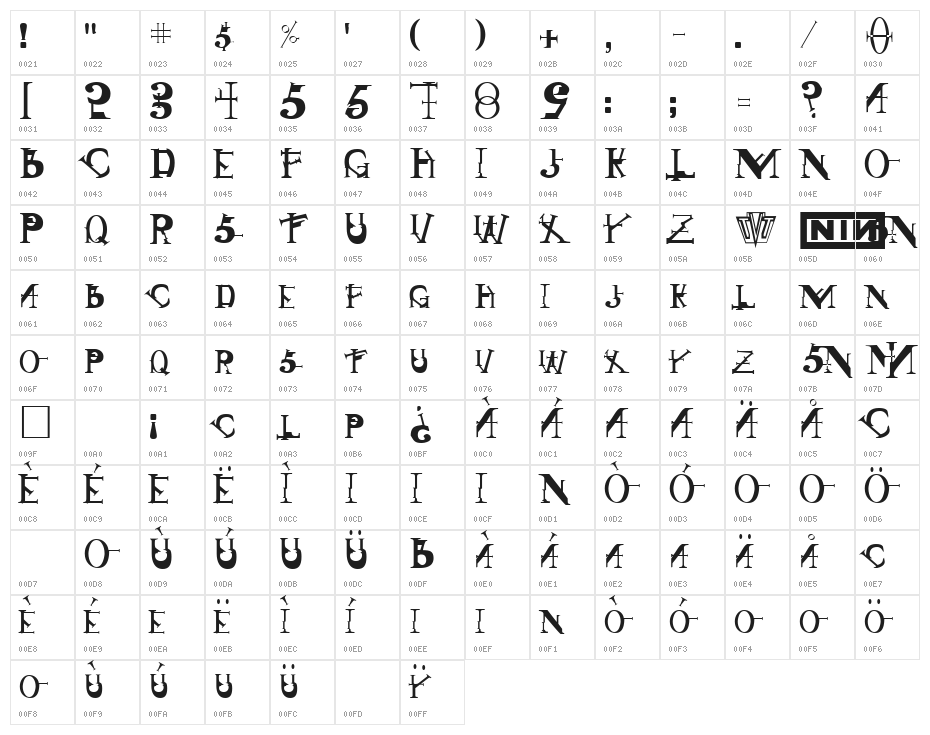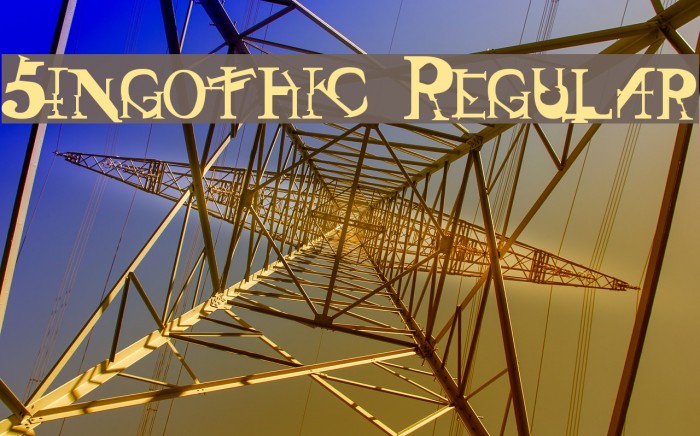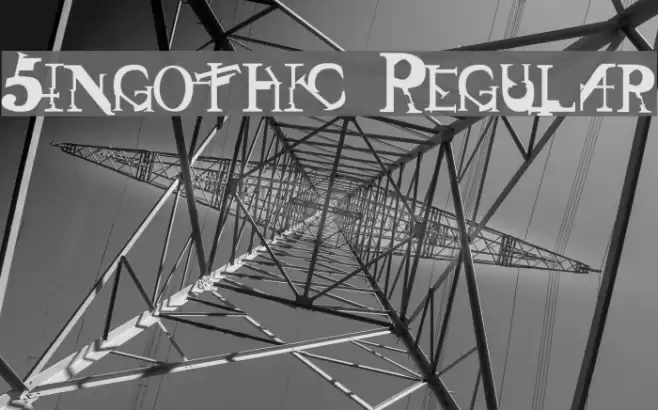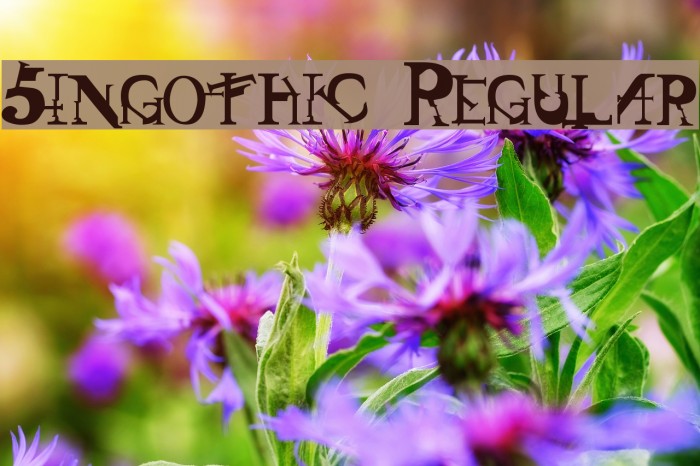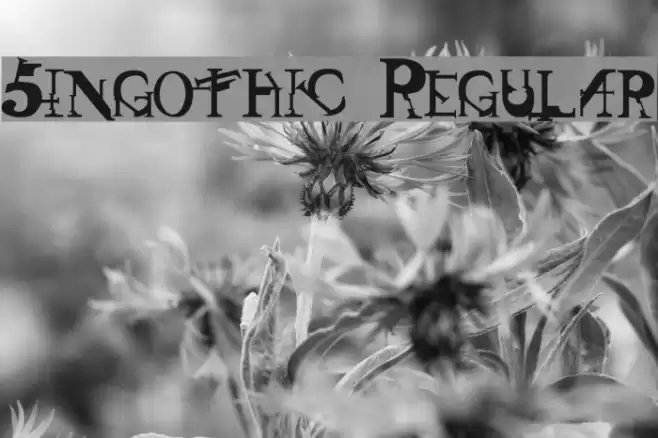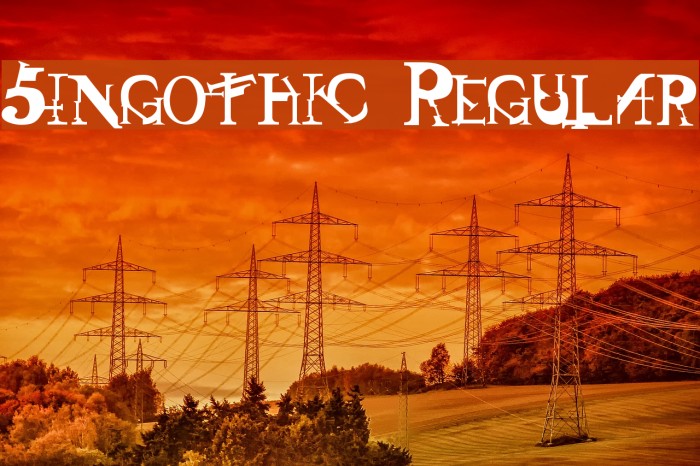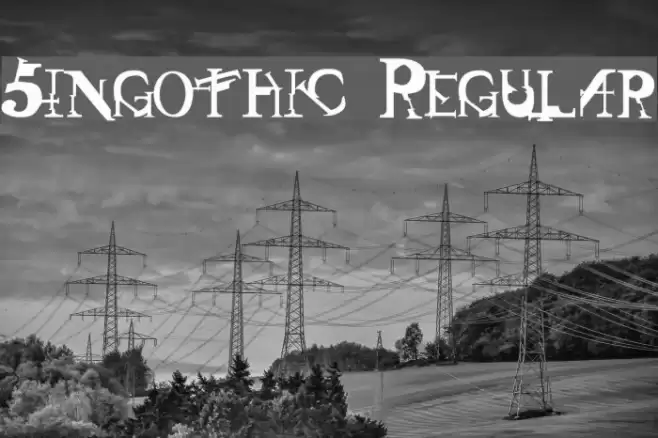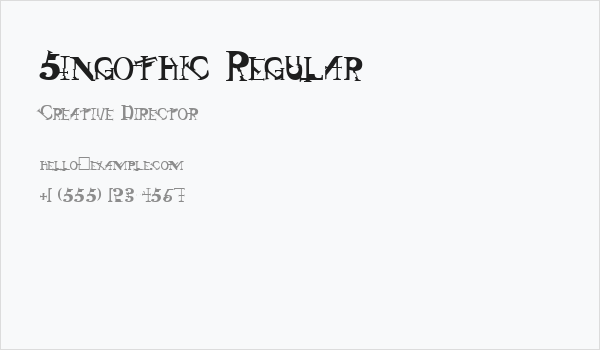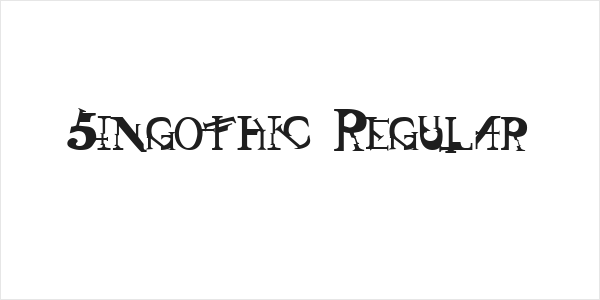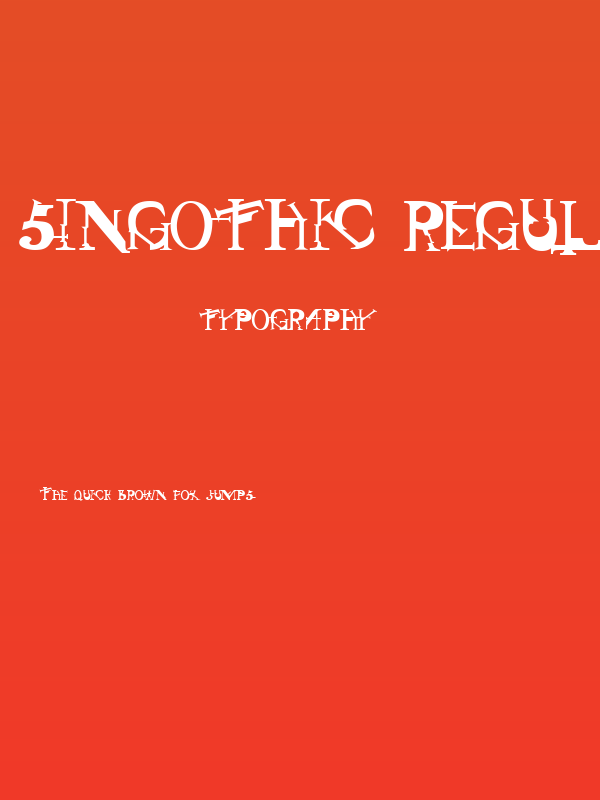
Singothic Regular Font
Singothic Regular Description
This font features a bold and striking design with a gothic influence, characterized by sharp angles and intricate details. The uppercase letters are particularly elaborate, with unique embellishments that give the font a dramatic and artistic flair. The lowercase letters maintain a consistent style, complementing the uppercase with their own distinct features. Numbers and special characters are designed to match the overall aesthetic, ensuring a cohesive look across all text elements. The font's boldness and decorative style make it suitable for projects that require a strong visual impact.
| Overall Style | Gothic, Decorative |
| Proposed Projects | Ideal for branding, posters, album covers, and any project needing a dramatic and artistic touch. |